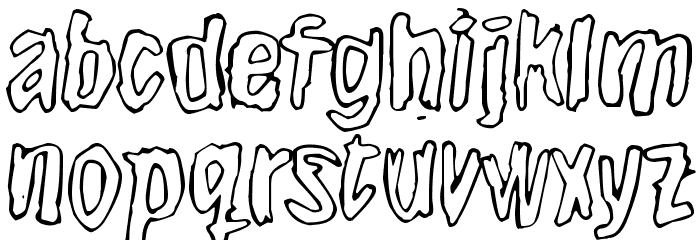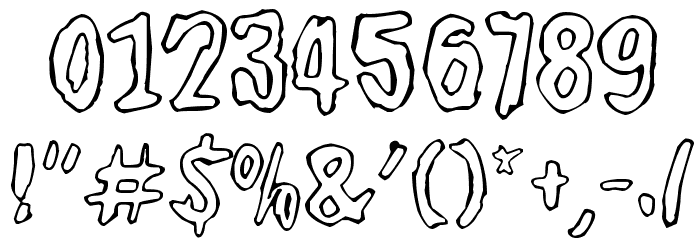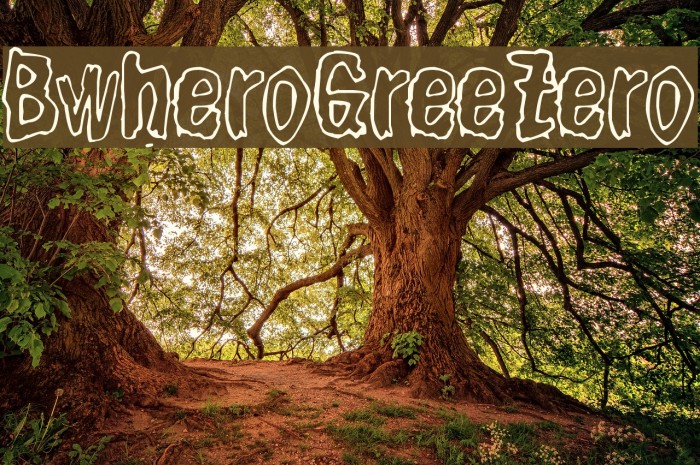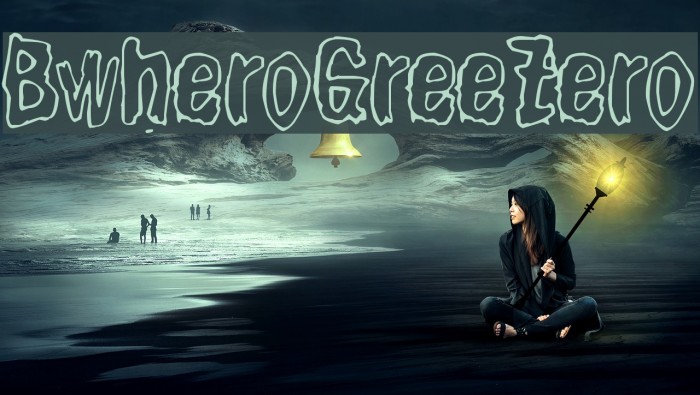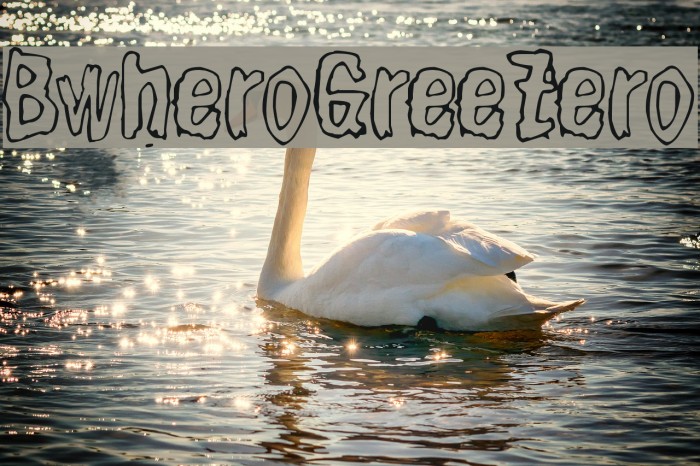
BwheroGreeZero Font
This font features a playful and irregular outline style, giving it a hand-drawn, cartoonish appearance. The characters are bold and have a slightly wavy contour, which adds a whimsical and informal touch. The uppercase and lowercase letters maintain a consistent style, with exaggerated curves and uneven lines that create a dynamic and energetic look. Numbers and special characters follow the same design principles, ensuring uniformity across the font. The font's unique style makes it stand out, making it suitable for creative and fun projects.
A playful, hand-drawn font with bold, wavy outlines and a cartoonish style.
- Proposed Projects: Ideal for children's books, comic strips, playful branding, and creative posters.
- Overall Style: Playful, Whimsical